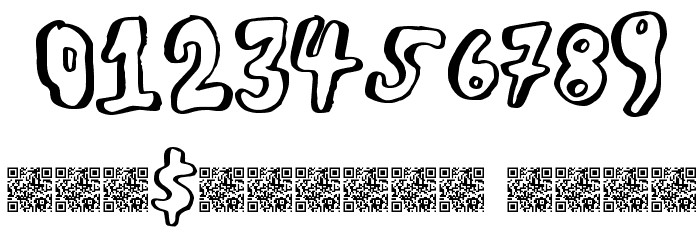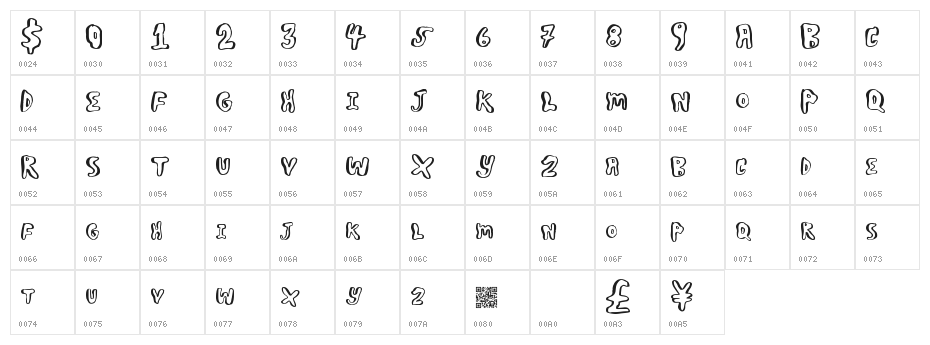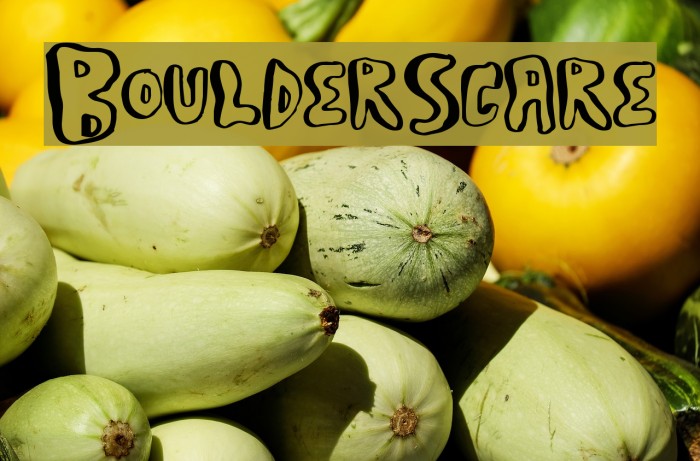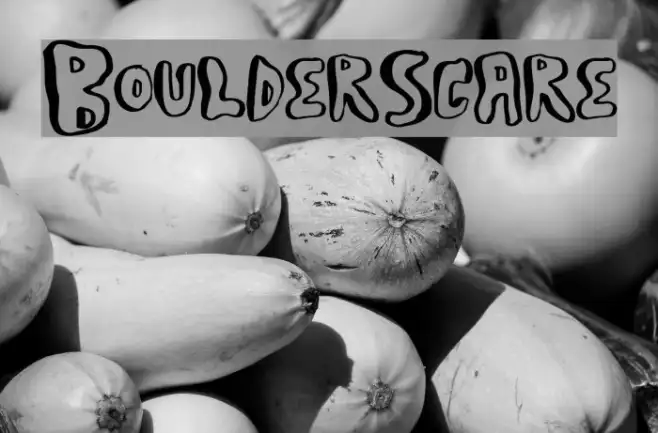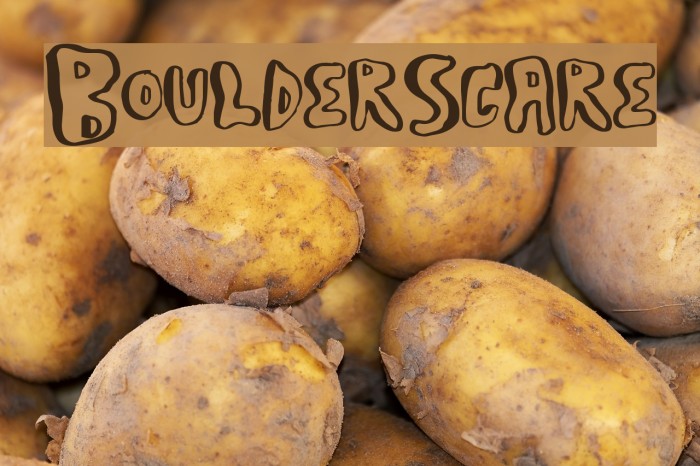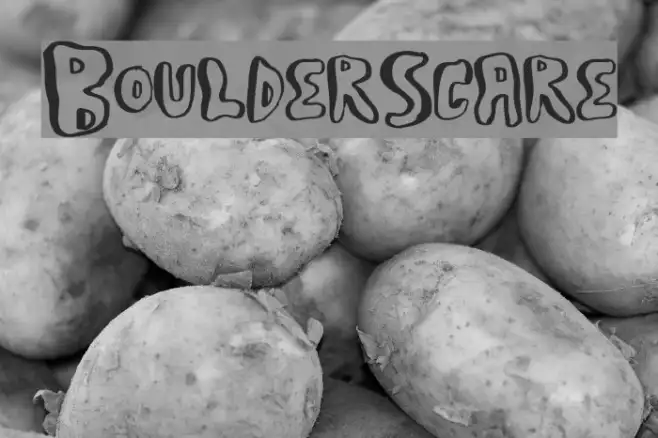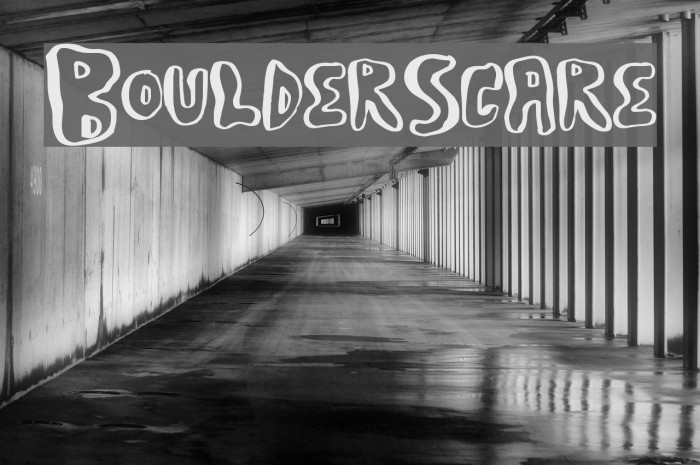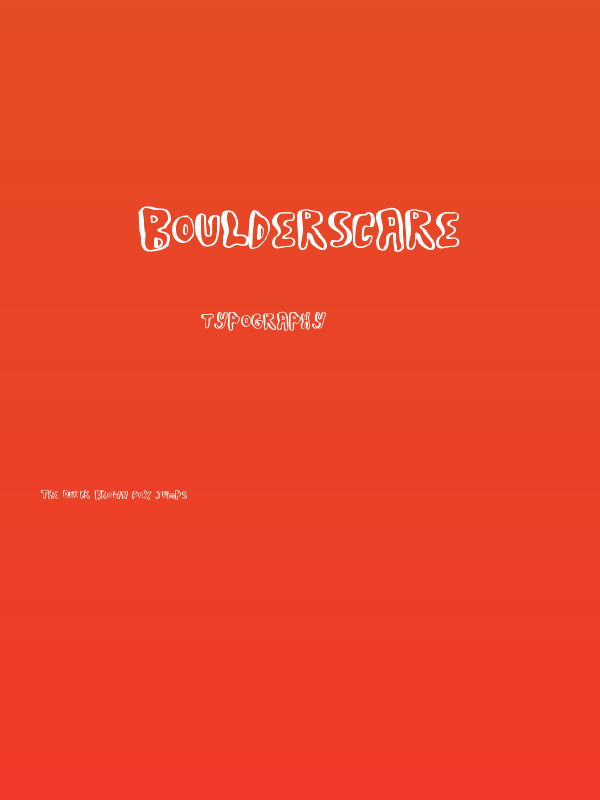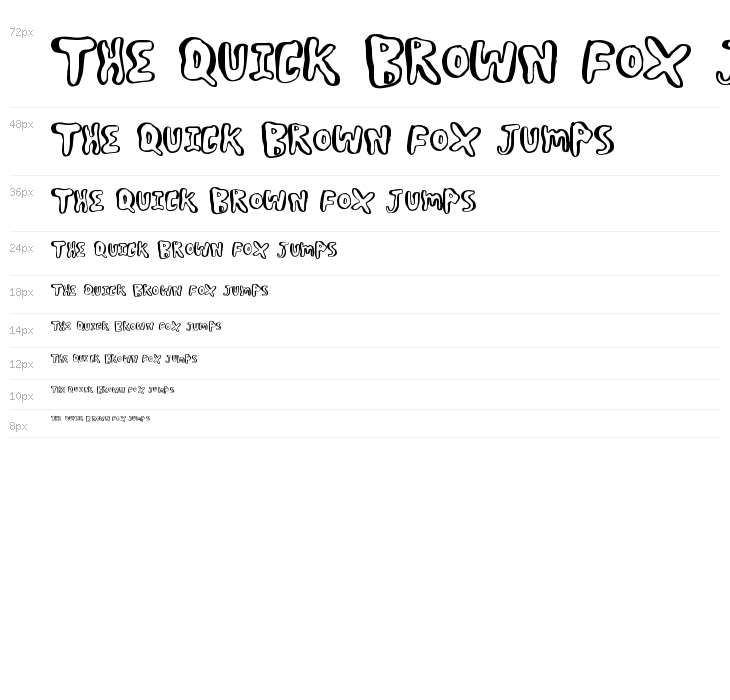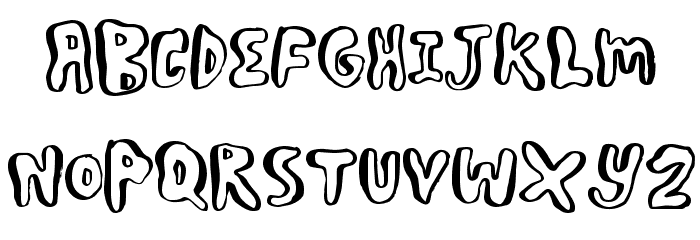
BoulderScare Font
BoulderScare Description
This font features a playful and bold design with a hand-drawn aesthetic. Each character is outlined with a thick, uneven stroke, giving it a cartoonish and whimsical appearance. The letters are slightly irregular, adding to the casual and informal feel. The font includes both uppercase and lowercase letters, numbers, and a selection of special characters. Its unique style makes it stand out, perfect for projects that require a fun and eye-catching typeface.
| Proposed Projects | Ideal for children's books, comic strips, playful branding, and party invitations. |